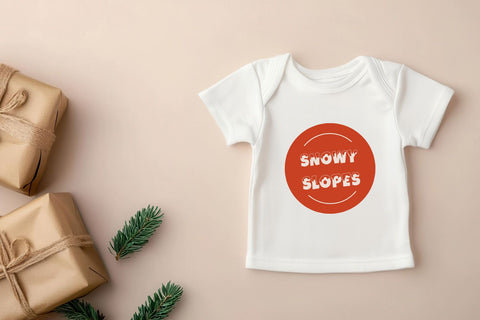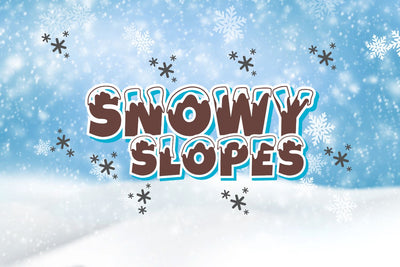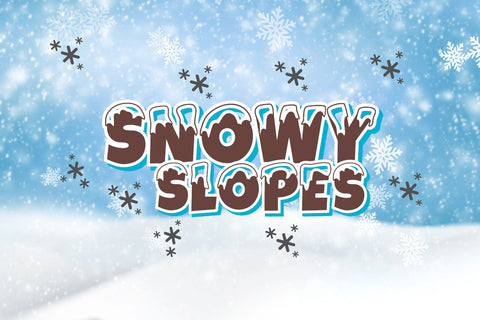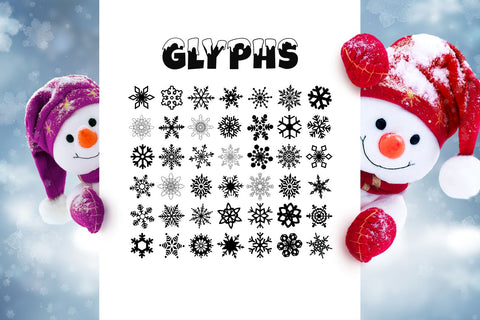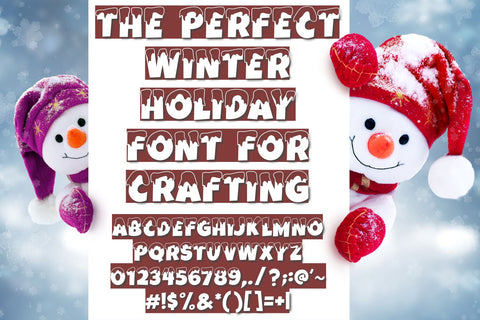
Snow Font – The Perfect Winter Holiday Font for Crafting, Cards, and DIY Projects
This beautifully crafted snow font is ideal for all your holiday and winter-themed projects! Whether you’re designing Christmas cards, holiday invitations, social media posts, or DIY decorations, this versatile font will make your designs pop with a festive snow effect.
Why You’ll Love This Font:
- Adds a magical snowy effect to any design.